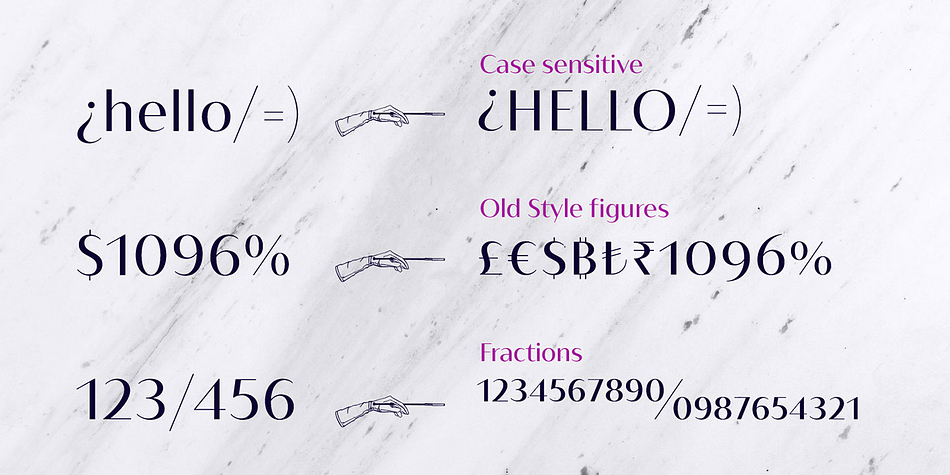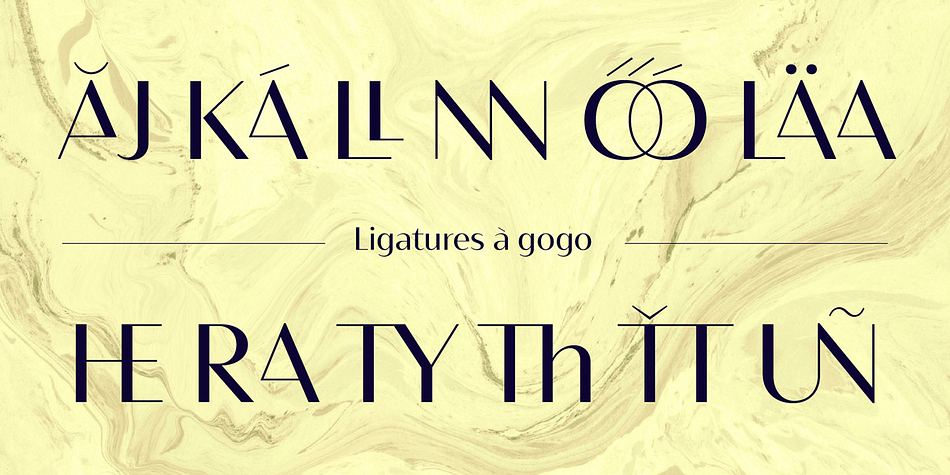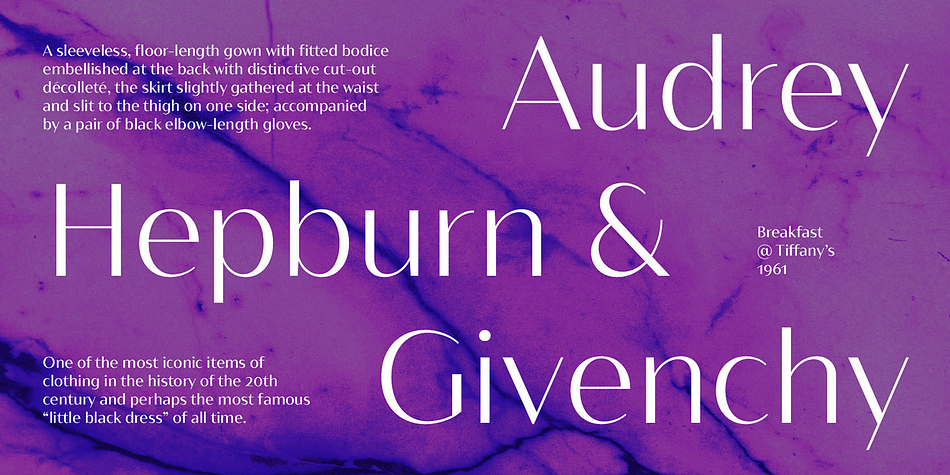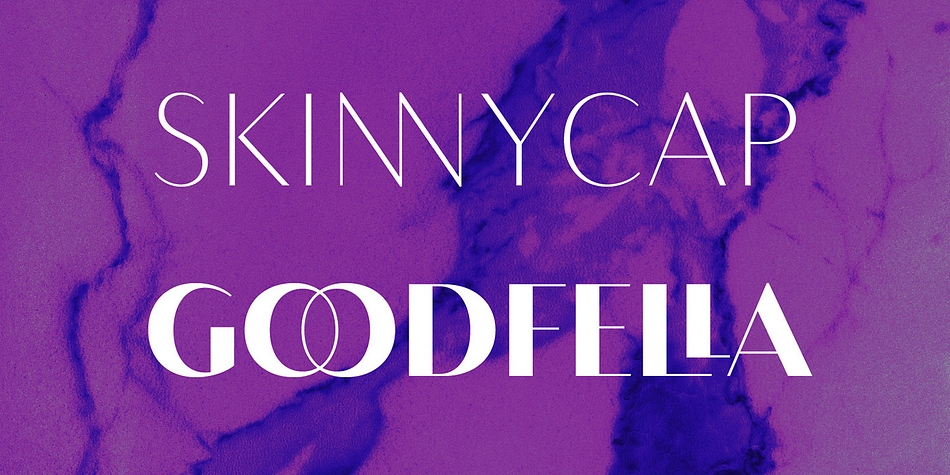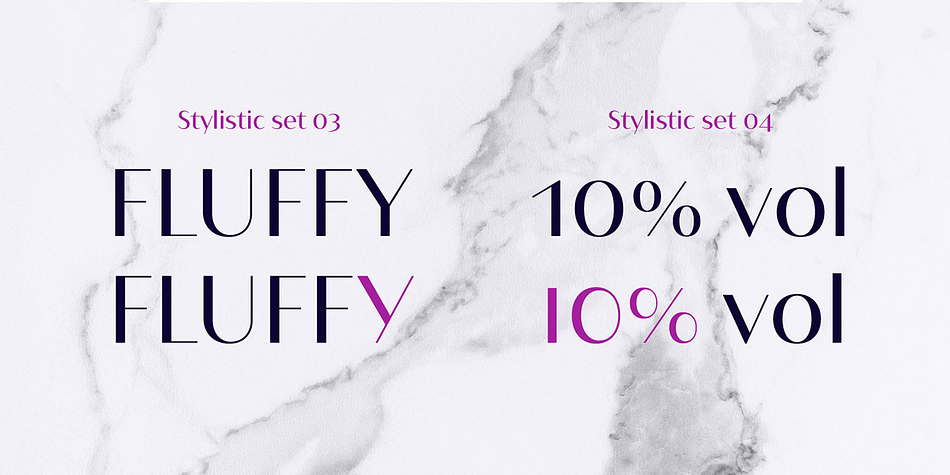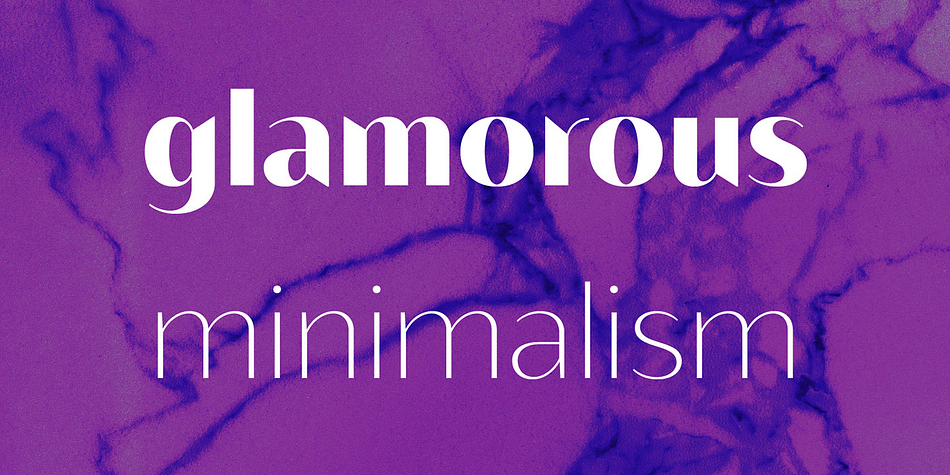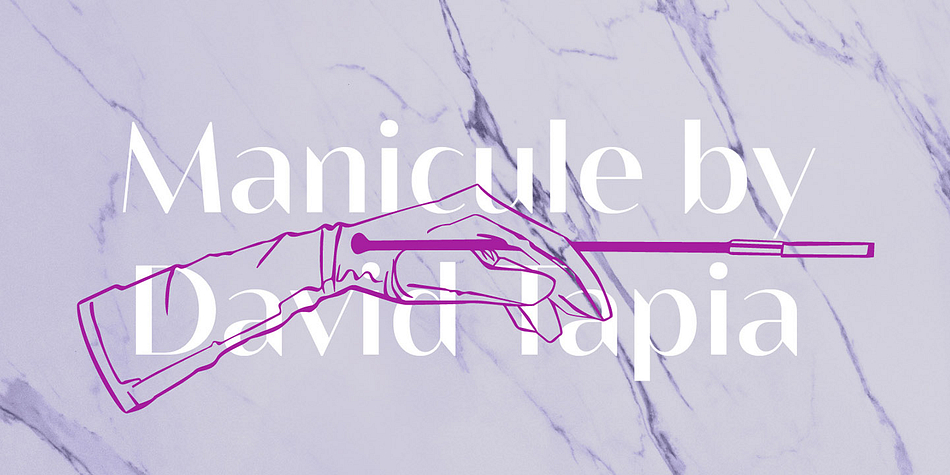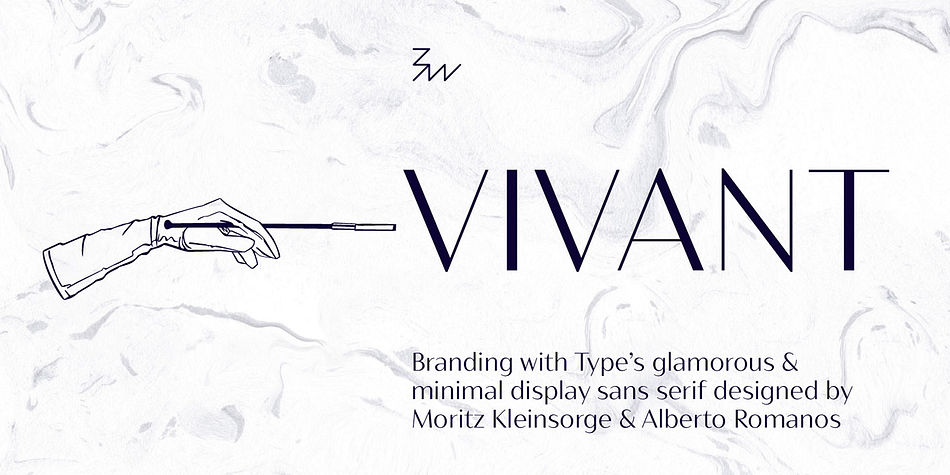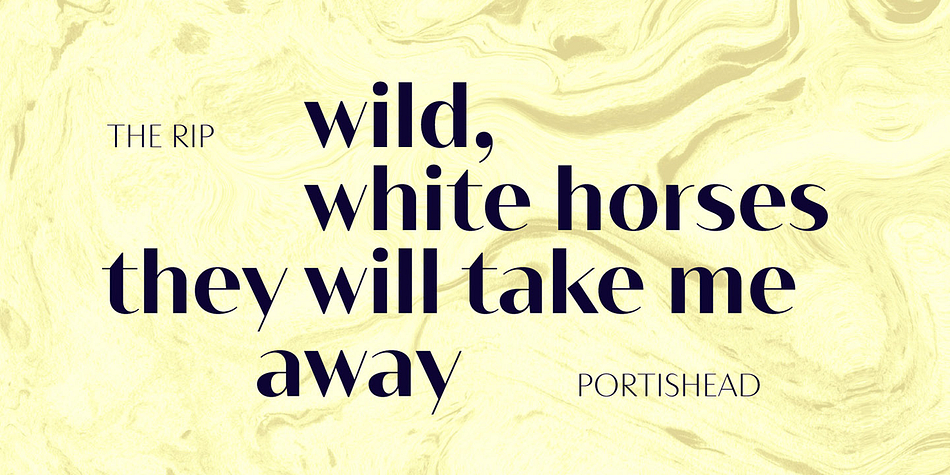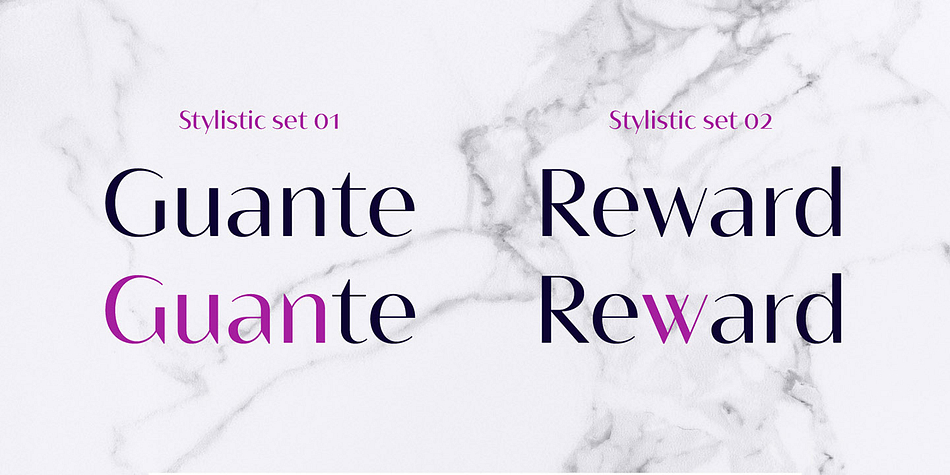
Designed by Alberto Romanos and Moritz Kleinsorge, Bw Vivant is a sans serif and art deco font family. This typeface has seven styles and was published by Branding With Type.
Designed by Moritz Kleinsorge & Alberto Romanos, Bw Vivant is a glamorous sans serif font family. It marries the visual appeal of deeply modulated serif typefaces with a minimal geometric approach, discarding any accessory element on the hunt for the cleanest shapes.
The result is a high contrast sans serif exuding elegance and glamour across every touchpoint, with subtle art-deco and classic cues coming through while feeling contemporary.
Available in 7 weights with the “thins” staying constant throughout, Bw Vivant supports all European Latin languages and it includes OpenType features like many discretionary ligatures, stylistic sets, old style figures or case sensitive forms among others.